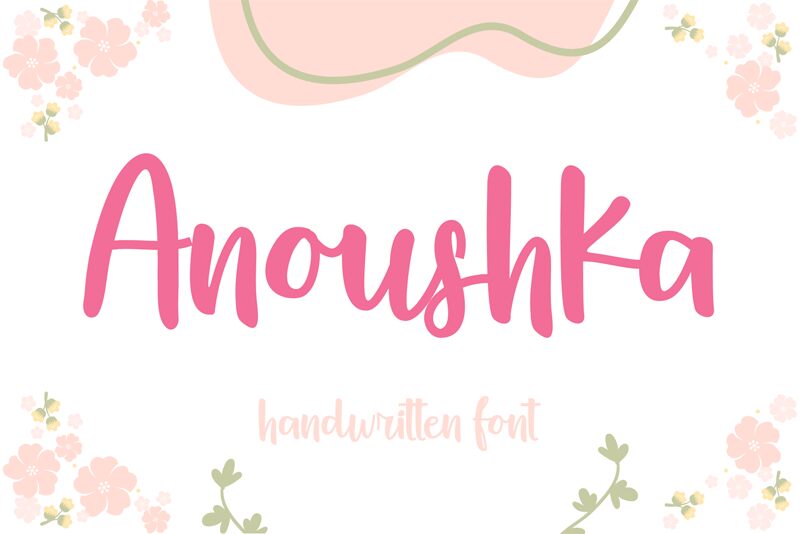
Anoushka is a beautiful handwritten font created by Tikara Sari. Its unique style makes it perfect for projects like invitations, greeting cards, posters and logos that need a personal touch.
Anoushka
Tikara Sari